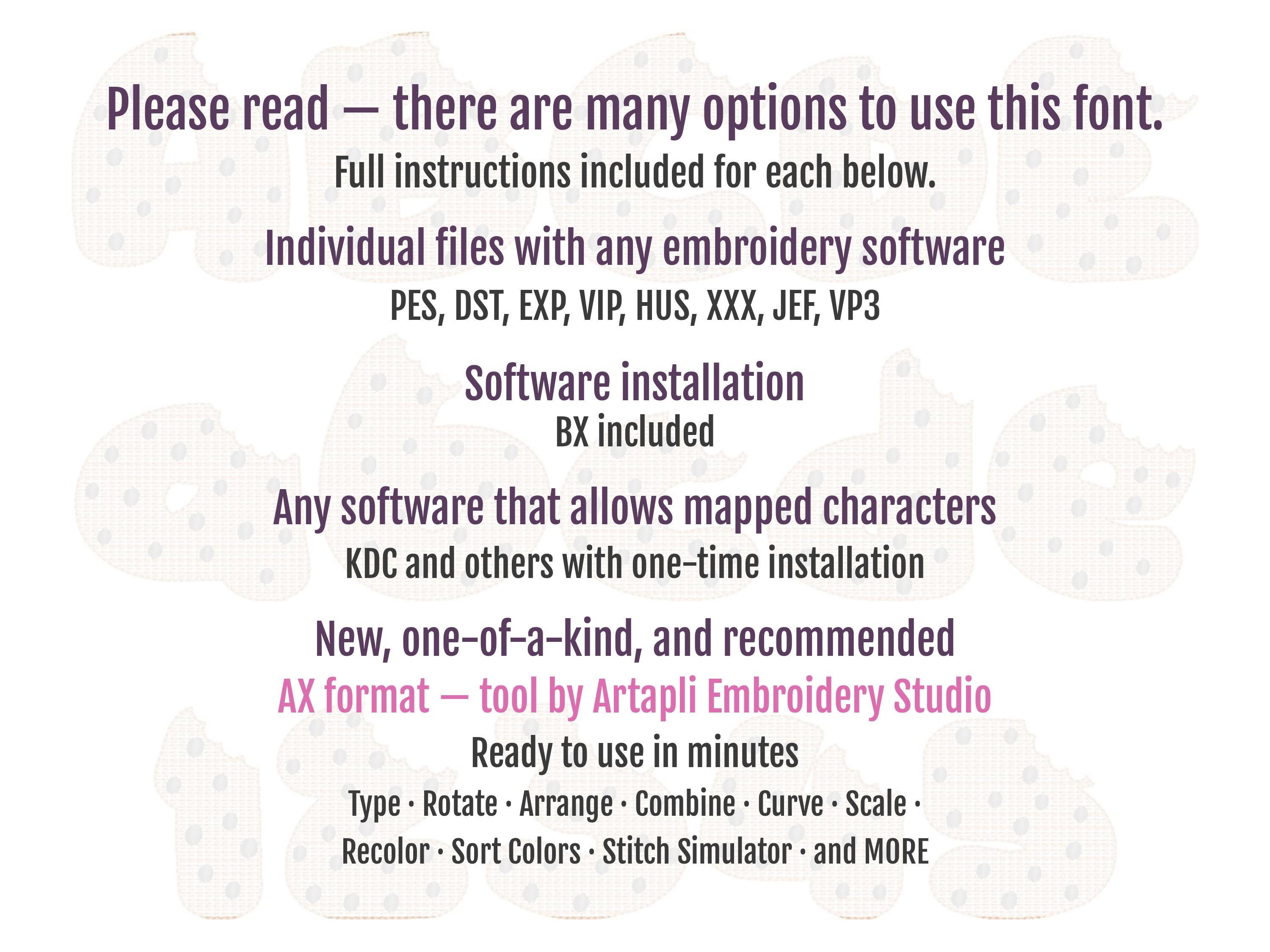
Bitten Cookie FONT with choco crisps light stitch alphabet machine embroidery designs assorted sizes, kids monogram chocolate cookies, BX included
Whole alphabet and numbers included
uppercase A-Z, lowercase a-z, numbers 0-9, and special marks & . , - ? /
The stitch lines are to far apart and the stitches aren’t smooth. The stitching on the teeth marks aren’t visible, it’s just smooth no actual separate indentations